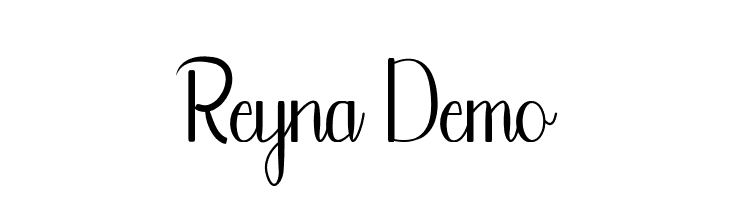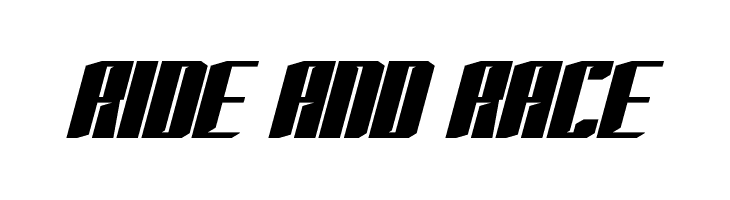
A bold, angular font with a dynamic, forward-leaning design.
A playful, handwritten font with rounded edges and a casual, friendly appearance.
A dynamic, flowing script font with elegant curves and bold strokes.
An elegant script font with flowing, interconnected letters and luxurious flourishes.
A flowing, cursive font with elegant loops and decorative flourishes.
A bold, distressed font with a rugged, vintage look.
A tall, elegant serif font with high contrast and refined style.
A playful and dynamic script font with a handwritten feel.
A dynamic, cursive script font with flowing, artistic strokes.
A dynamic, cursive font with fluid strokes and a modern, artistic flair.